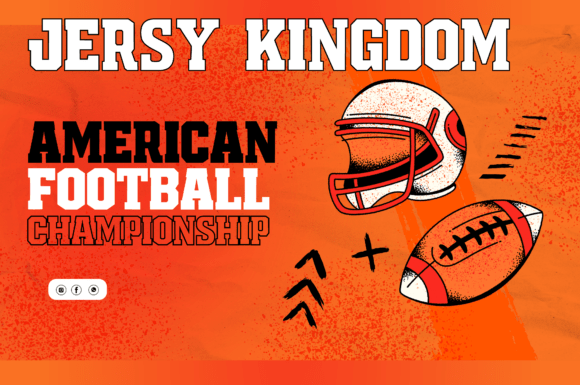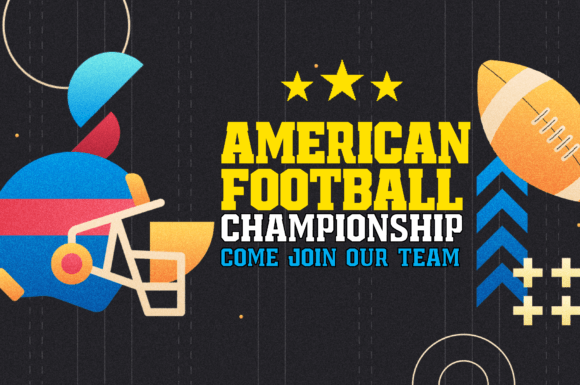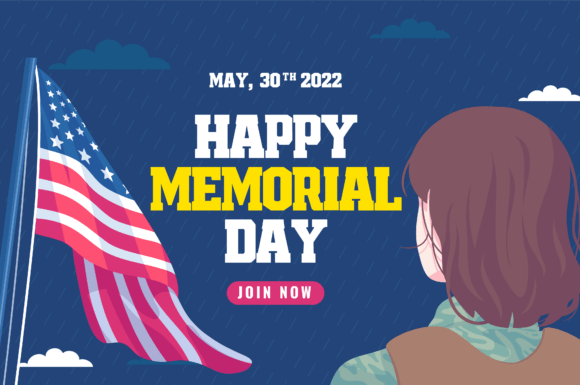
Introduction to Jersey Kingdom Font
Experience the fusion of athleticism and academia in the unique typeface, Jersey Kingdom.
This exclusive font offers six dynamic styles: Regular, Italic, Retalic, Hollow Regular, Hollow Italic, and Hollow Retalic Each one is a blend of energetic sports vibes and an intellectual campus atmosphere, creating a vibrant competition font that exudes both dynamism and sophistication.